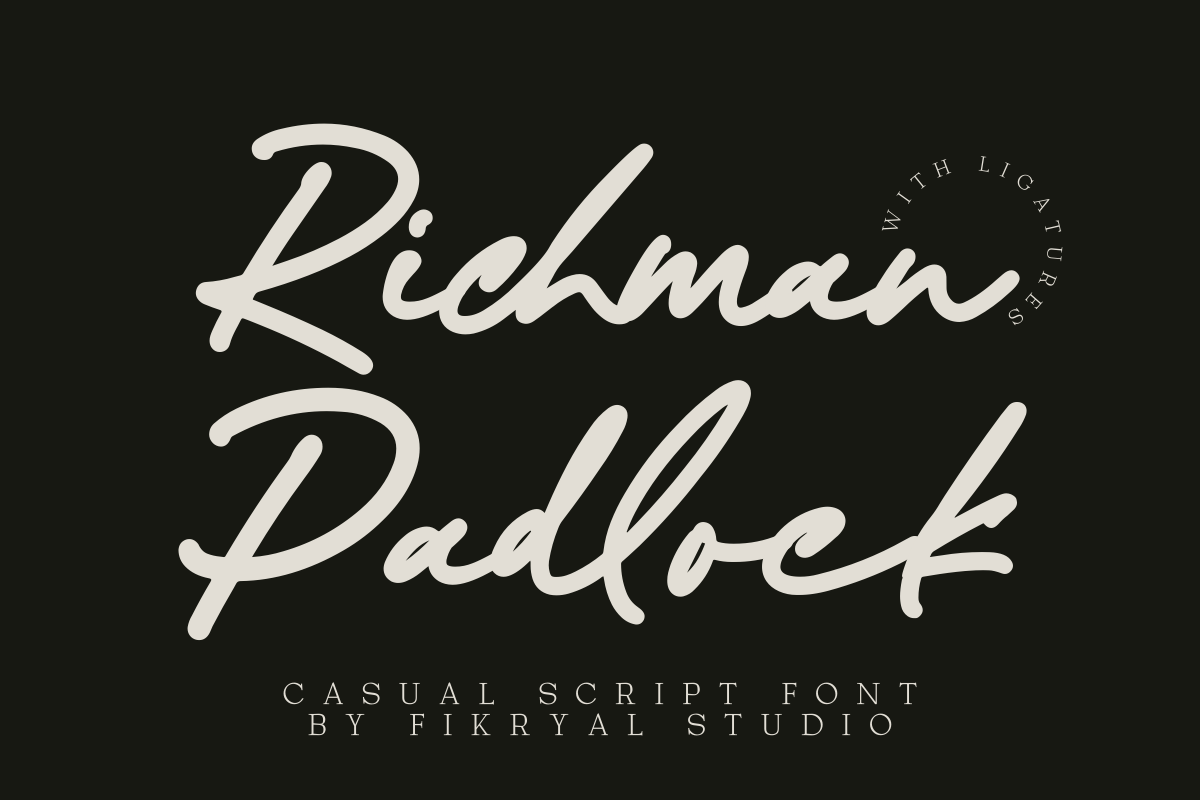
Richman Padlock - Casual Script Font
Introducing Richman Padlock, a stunning handwritten script font designed to add personality and elegance to your projects. This font is enriched with ligatures for smooth, natural letter connections, making it ideal for:
Branding: Build a memorable identity with a unique and charming script. Logos: Perfect for timeless and stylish brand marks. Invitations: Create beautiful wedding, party, or event invitations. Social Media: Add personality to your posts and stories. With its casual yet sophisticated feel, Richman Padlock is your go-to font for creative projects that need a personal touch.